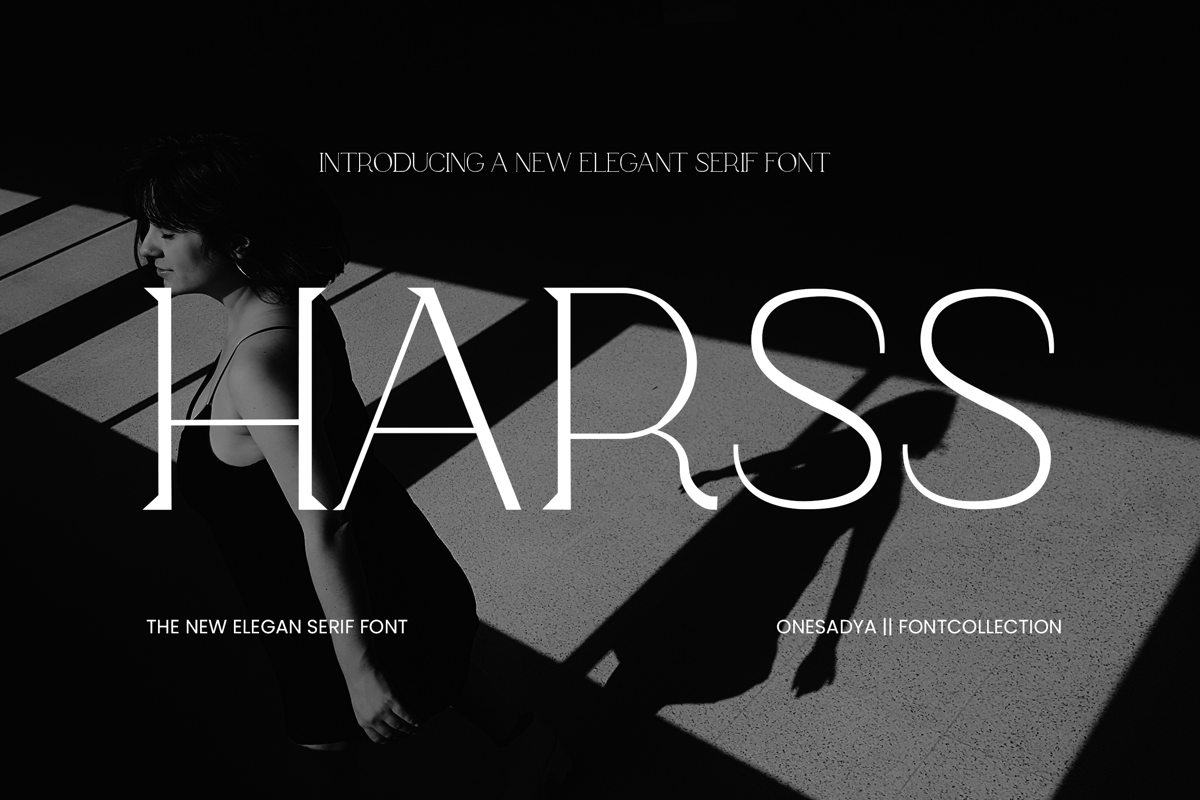
Harss – Minimalist Serif Display Font
Harss is the minimalist serif typeface that gives luxury brands a clean, timeless voice.
Harss is a sophisticated serif display font built for elegant, refined visual identities. Its clean letterforms, delicate serif details, and balanced proportions deliver a modern yet classic character — striking the perfect balance between understated luxury and contemporary design.
Whether you're crafting a high-end brand identity or setting type for an editorial spread, Harss performs beautifully across a wide range of applications:
- Fashion and beauty brand identities
- Luxury logos and packaging
- Editorial layouts and magazine design
- Invitations and premium stationery
- Social media graphics and digital content
- Product labels and print collateral
Harss is designed to bring a clean, premium aesthetic to your typography — simple, contemporary, and effortlessly elegant for both digital and print projects.